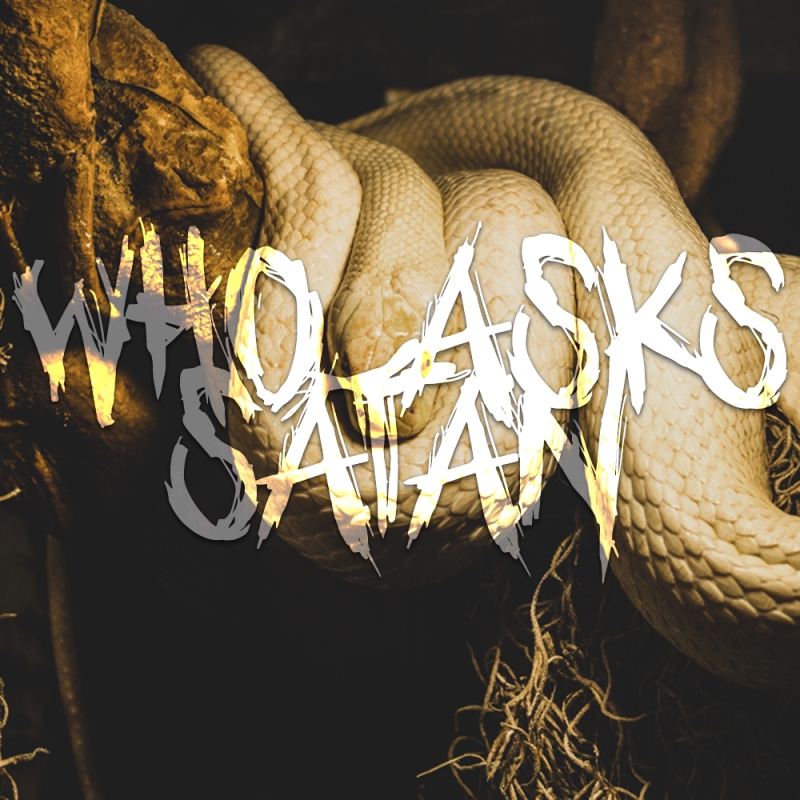
Looking for a professional font that will give your horror movie poster or heavy metal album cover an edge? Look no further! We will showcase 11 of the best fonts that can be used for logos and graphic design in these genres. These fonts are all high-quality and eroded, giving them a gritty and dark feel. So if you're looking to create a truly terrifying or metal-inspired piece here are some fonts to consider. This collection of fonts is perfect for those who are looking to create logos or other graphic design elements for horror movies or heavy metal groups.
1. Marshal The Dead Font
2. Ode to Murder Font
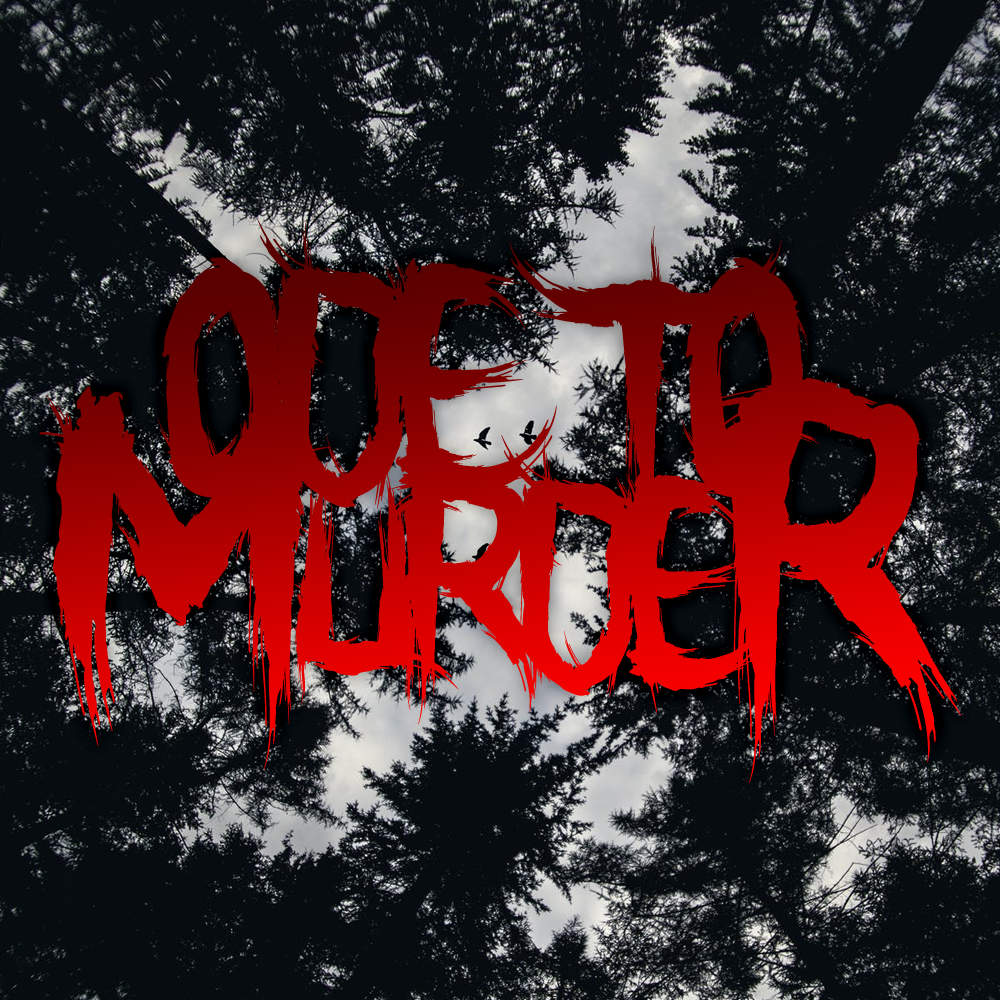
3. Fit for Murder Font
5. Eater of Children Font
6. Jacknife Font
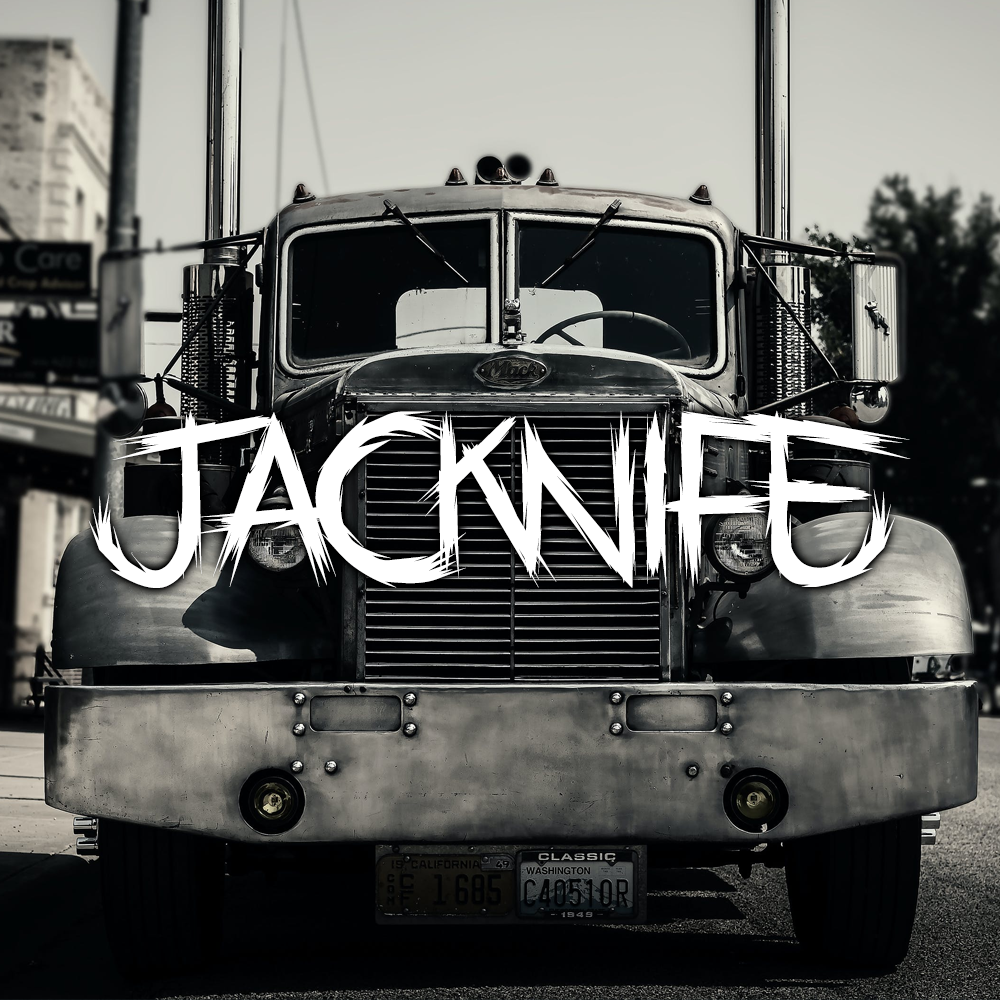
7. Who Asks Satan Font
8. Family Annihilator Font
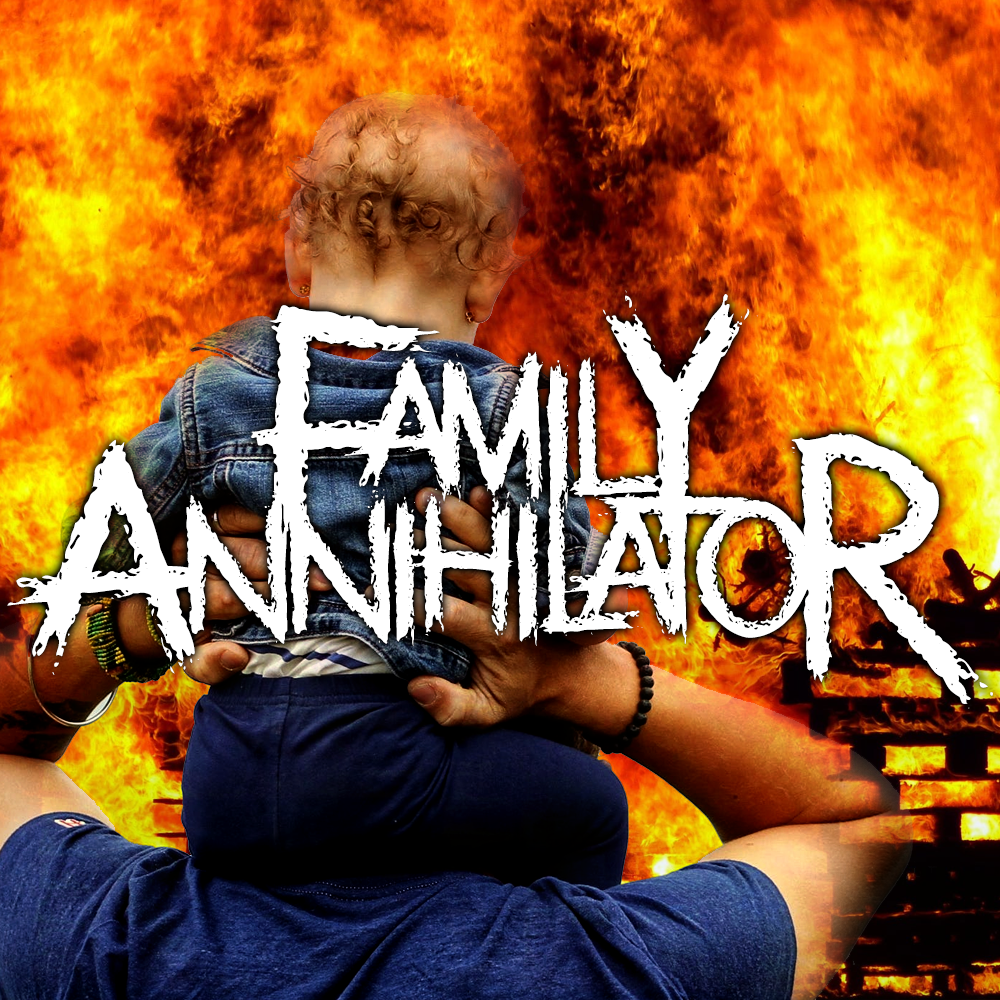
9. Malignant Font
10. X Spiked Font
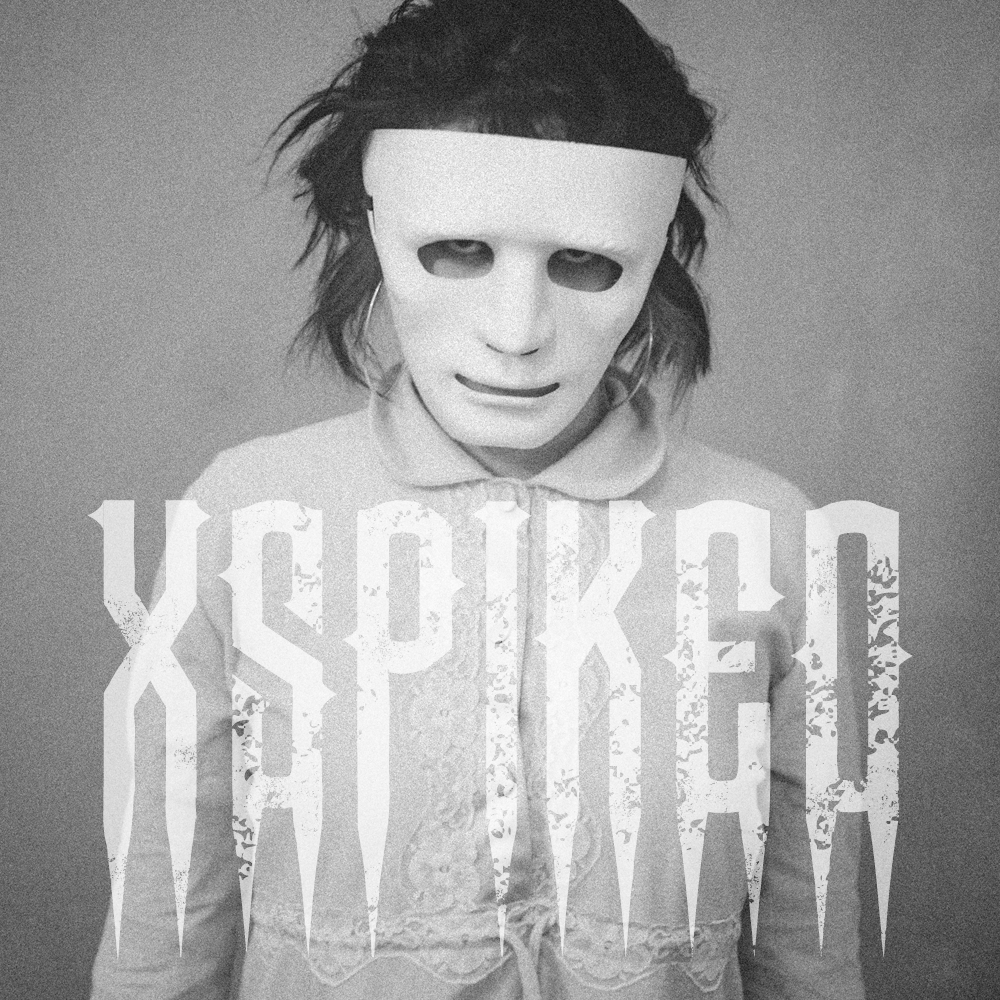
11. Philophobia Font